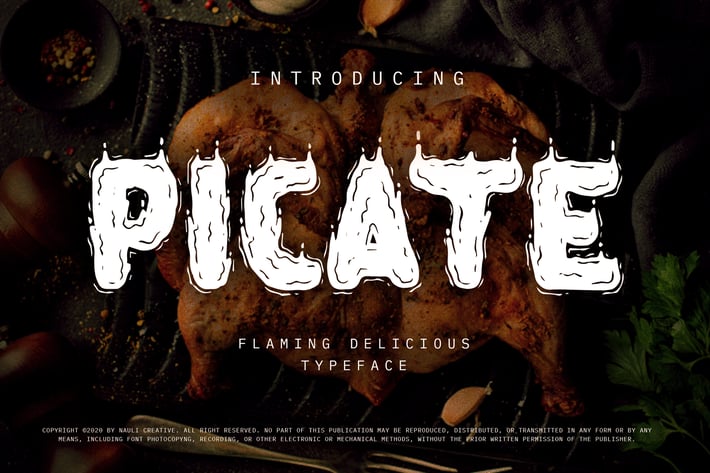
Picate - Flaming Decorative Typeface
Are you looking for a fancy unique flaming decorative font? We can help! Try to download our picate font. The font is suitable to use for all purpose. Try to use it on banner ads, event, greeting card, poster, postcard, photography, branding, editorial, quote, music, travelling, and many more to see the best of it :)